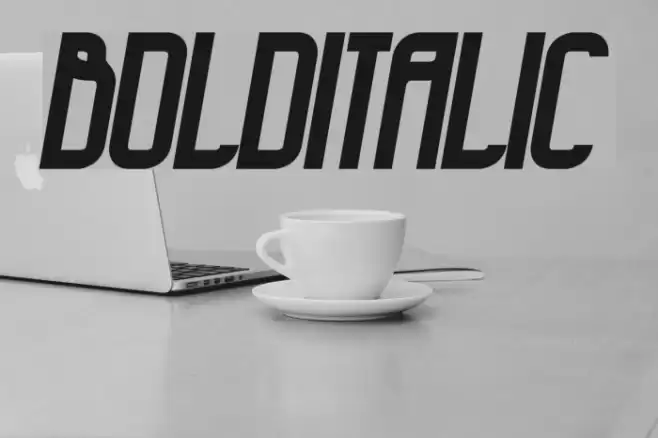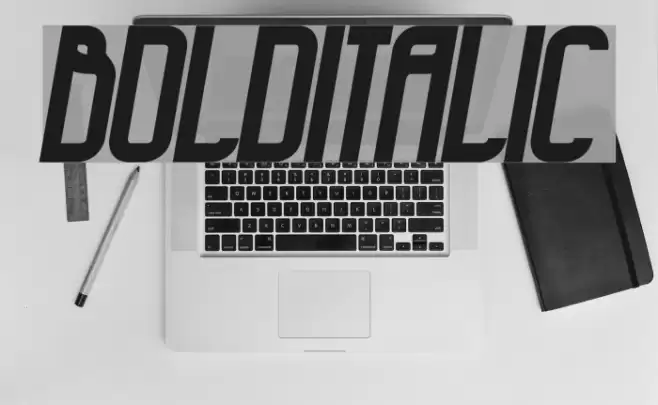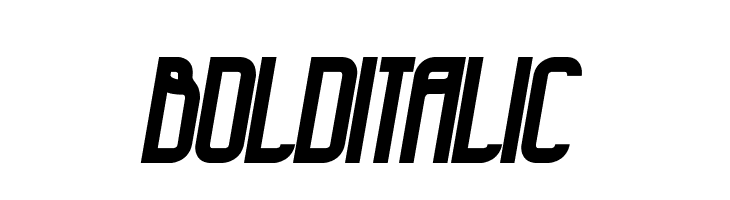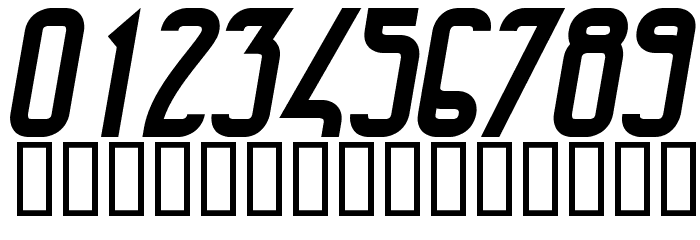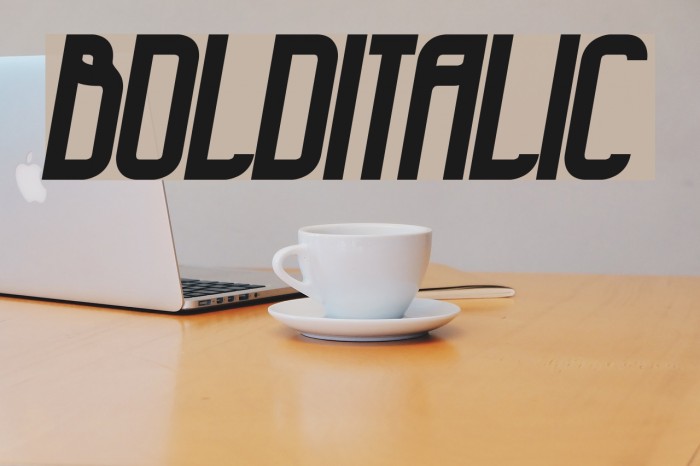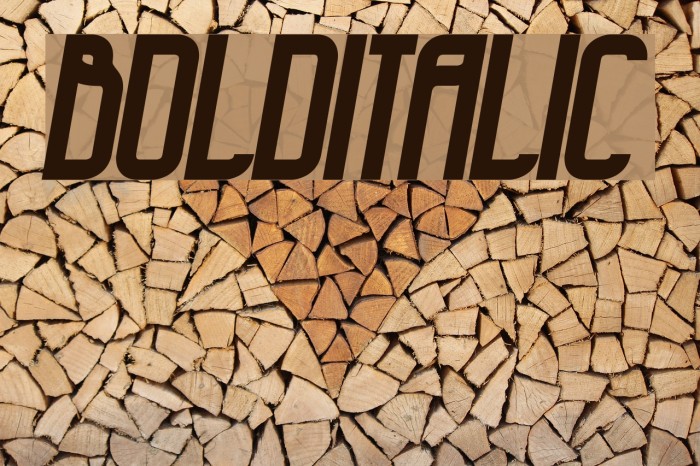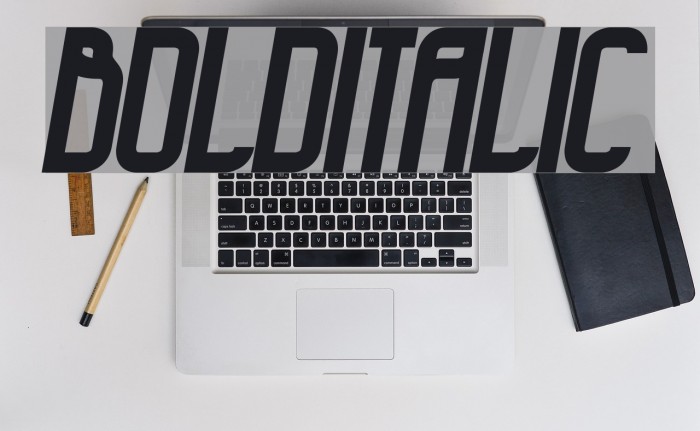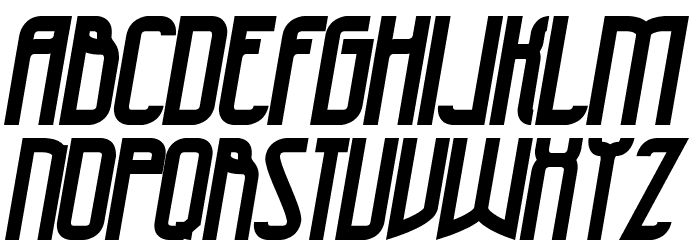
BoldItalic Font
BoldItalic Description
This font features a bold and italicized style with a modern and dynamic appearance. The characters are elongated and slightly condensed, giving a sleek and streamlined look. The strokes are thick, providing a strong visual impact, while the italic slant adds a sense of motion and energy. The uppercase and lowercase letters maintain a consistent style, with sharp angles and clean lines. The numerals are distinct and match the overall aesthetic, ensuring readability and uniformity. This font is ideal for projects that require a bold statement and a contemporary feel.
A bold, italicized font with a modern, dynamic style and strong visual impact from Uncategorized fonts.